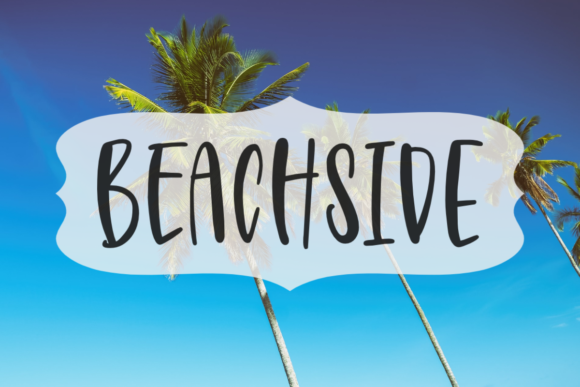
Discover the Perfect Script for Your Next Creation
Have you ever been brainstorming a new design project and suddenly felt the urge to bring a smile to your audience’s faces? Maybe you’re working on a children’s book or a playful advertisement, and you need a font that captures the carefree spirit of a sunny day at the beach. That’s where Beachside Font comes in – a chic, trendy, and fun handwritten font that’s sure to elevate your design to the next level.
Beachside Font is the perfect choice for designers who want to add a touch of whimsy and personality to their creations. Whether you’re working on a cartoon, a children’s game, or just a fun project that requires a lovely touch, this font will be an amazing choice. With its unique and playful style, Beachside Font is sure to bring a smile to your audience’s faces and leave a lasting impression.
Key Features of Beachside Font
- Unique Characteristics: Beachside Font features a distressed, hand-drawn style with subtle texture and imperfections, giving it a unique and organic feel.
- Scalability: The font is designed to be highly scalable, maintaining its integrity and aesthetic appeal even at small sizes, making it ideal for use in digital applications.
- Customization Options: Beachside Font allows users to adjust the font’s texture and imperfections to suit their design needs, adding an extra layer of customization and control.
Beachside Font Review
Overall, I was excited to dive into the Beachside Font and see what it had to offer. Here are my thoughts.
- ✨ The font’s relaxed, beachy vibe is perfect for any summer-themed project. It’s got a fun, carefree feel that’s sure to put a smile on users’ faces.
- ✨ The font is highly legible, making it easy to read in a variety of sizes and contexts. This is especially important for body text and headings.
- ✨ The font’s character set is extensive, with a wide range of punctuation and special characters included.
- ⚠️ The font is a bit too playful for some applications, such as resumes or formal documents. It may come across as unprofessional in these contexts.
- ⚠️ The font’s uniqueness can also be a limitation, as it may not be suitable for projects where a more traditional or conservative font is desired.
The Beachside Font is a great choice for projects that need a fun, laid-back vibe. While it may not be suitable for every application, it’s a great addition to any designer’s toolkit. With its relaxed feel and extensive character set, it’s a solid choice for summer-themed projects, blogs, and websites.
Tips for Getting the Most Out of Beachside Font
Beachside Font is perfect for creating a relaxed, beachy vibe. Here are some tips for getting the most out of it:
- Use it for titles and headings to add a touch of elegance.
- Combine it with images of seashells, driftwood, or other beach-inspired elements.
- Experiment with different font sizes and colors to create a visually appealing design.
Beachside Font is perfect for:
- Summer-themed invitations and party decor.